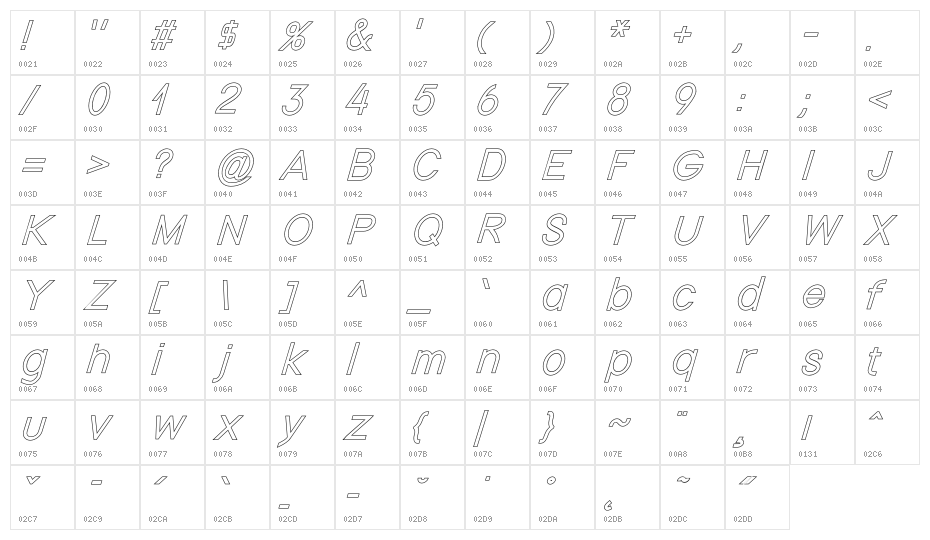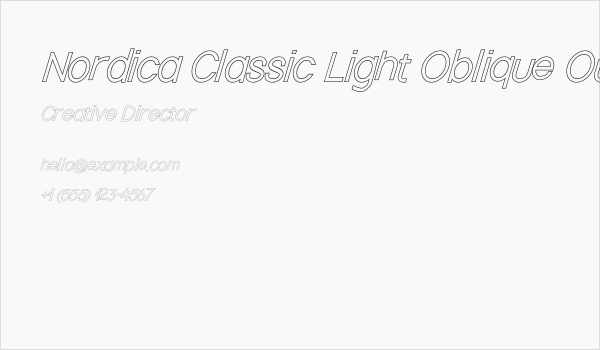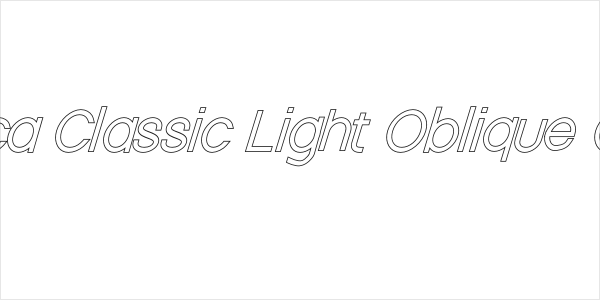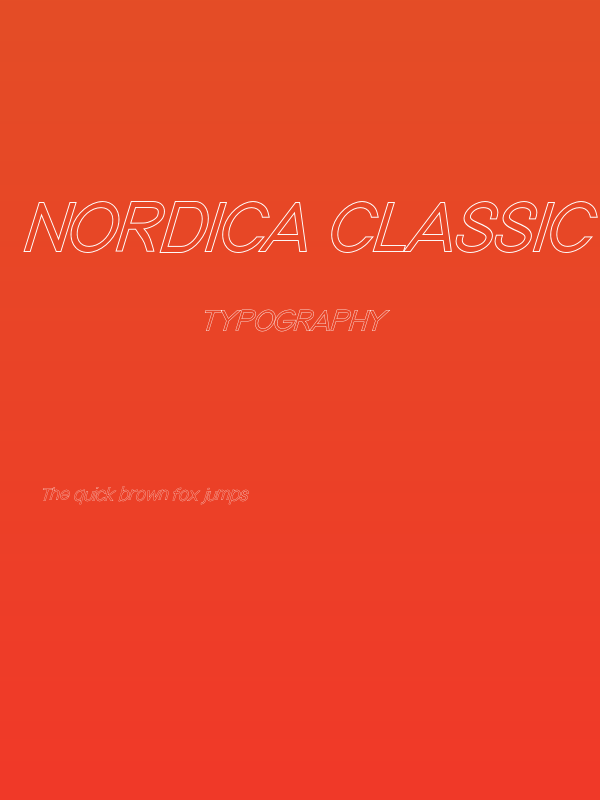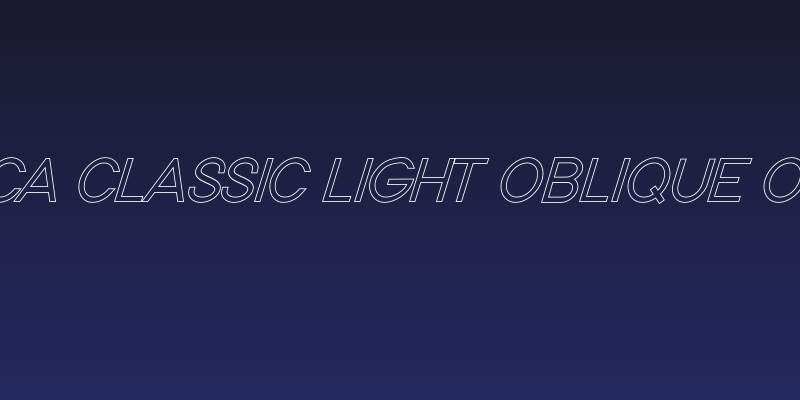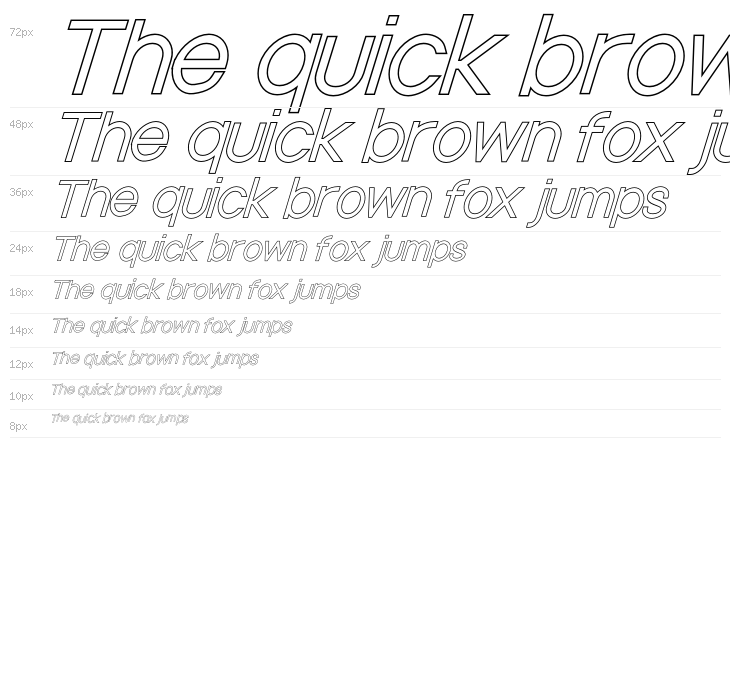
Nordica Classic Light Oblique Outline Font
Nordica Classic Light Oblique Outline Description
This font features a sleek and modern outline style with an oblique slant, giving it a dynamic and forward-leaning appearance. The characters are light and airy, with a consistent stroke width that maintains a clean and minimalistic look. The uppercase and lowercase letters are well-proportioned, and the numerals are clear and easy to read. Special characters are included, enhancing its versatility. The overall design is elegant and sophisticated, making it suitable for a variety of creative applications.
| Proposed Projects | Ideal for branding, advertising, and editorial design projects where a modern and stylish look is desired. |